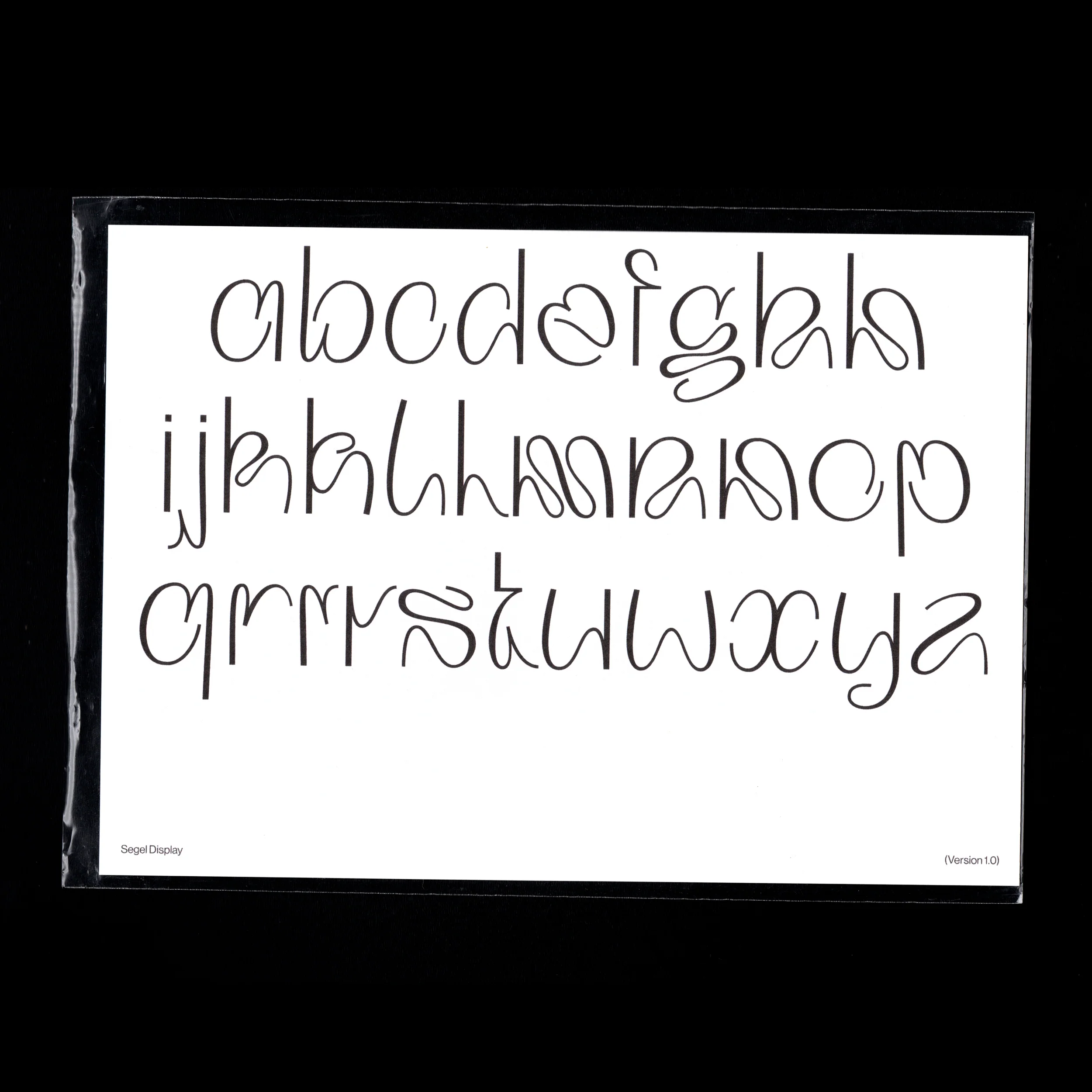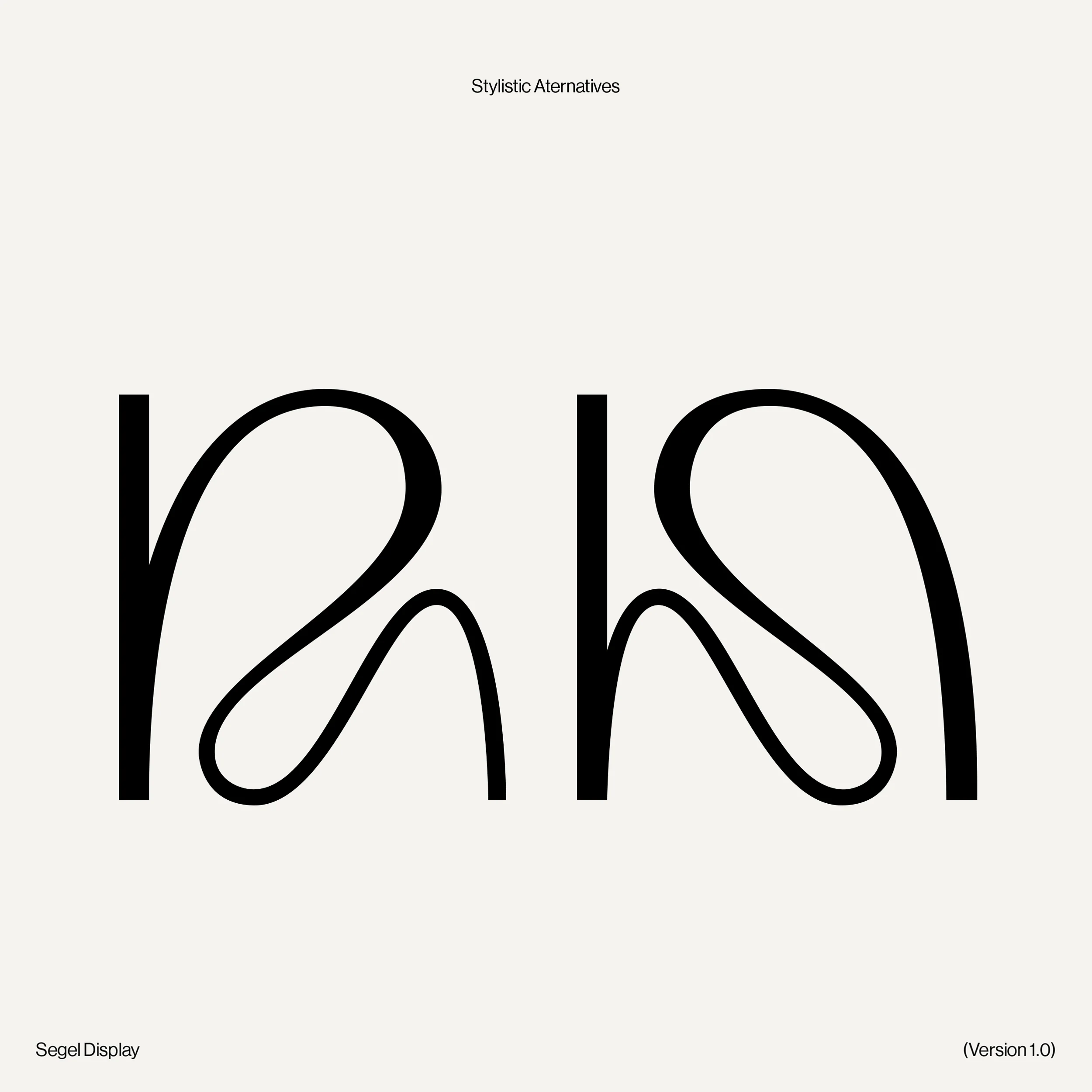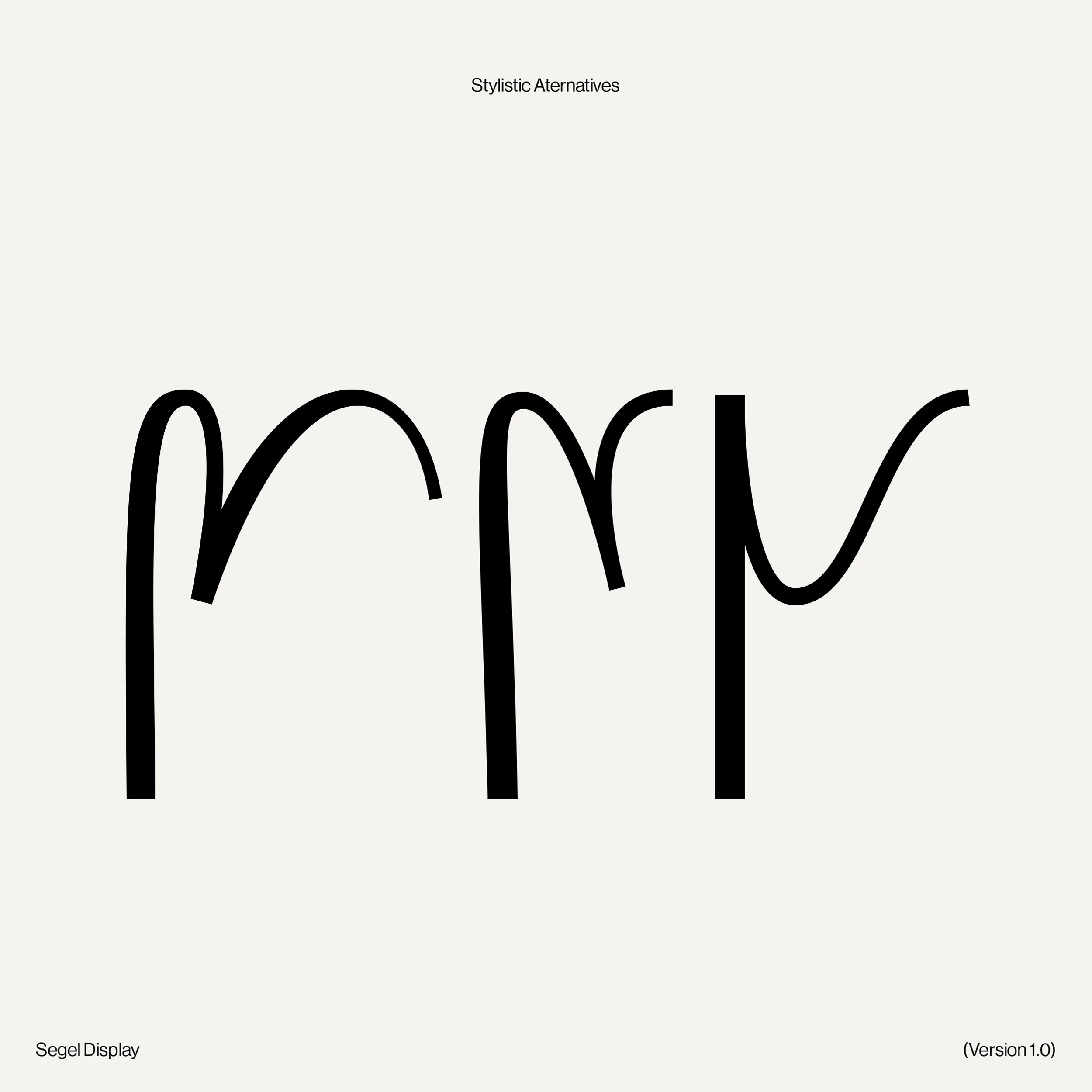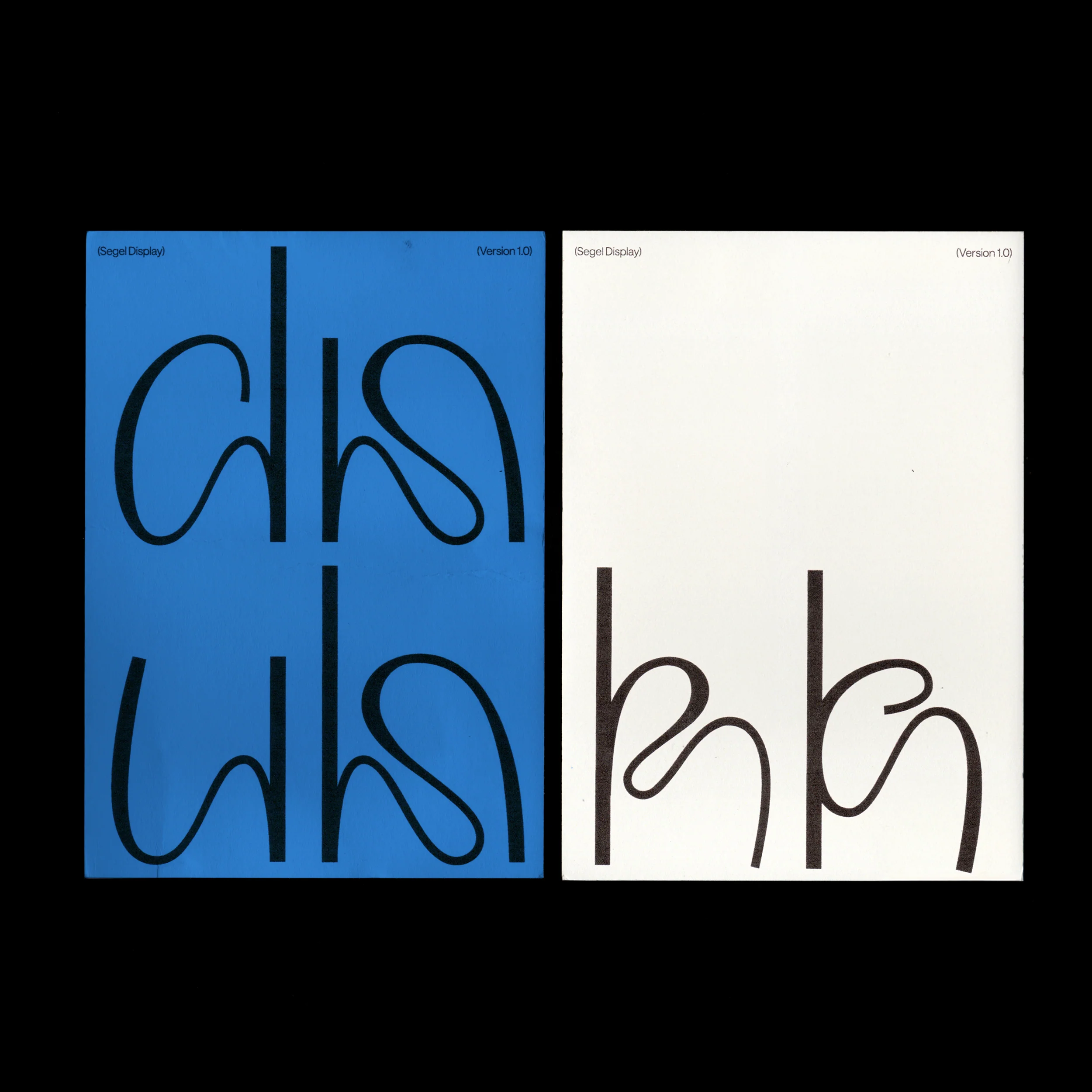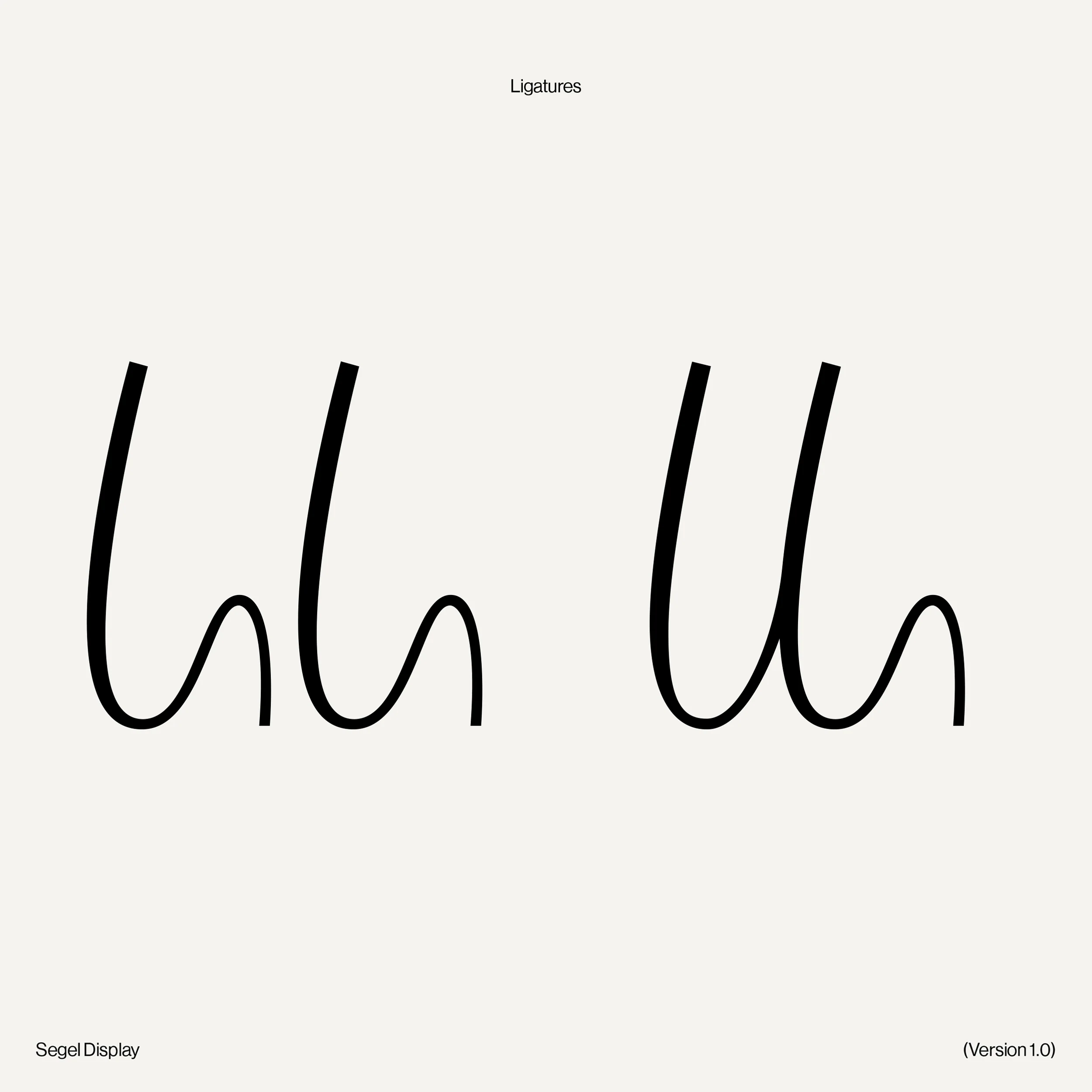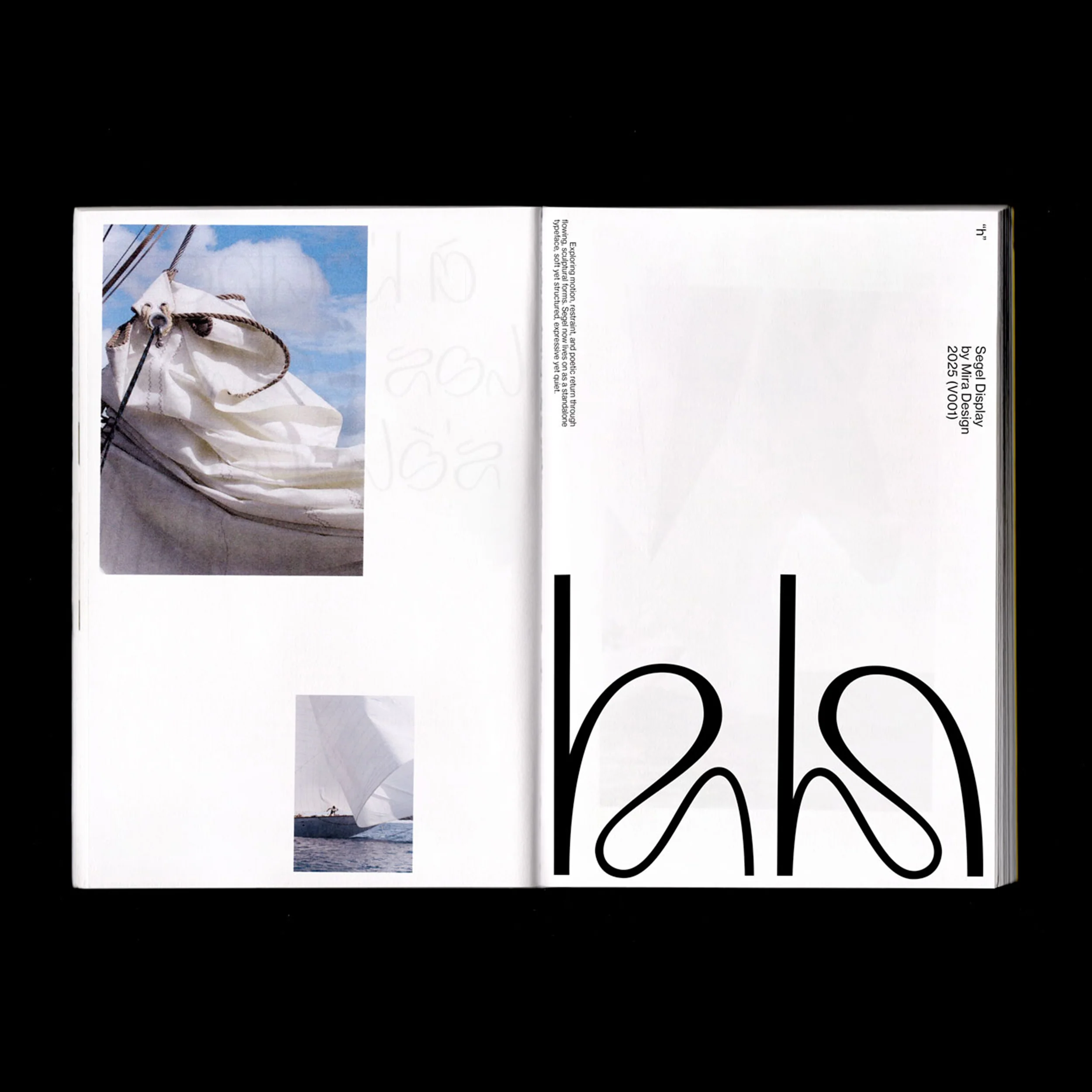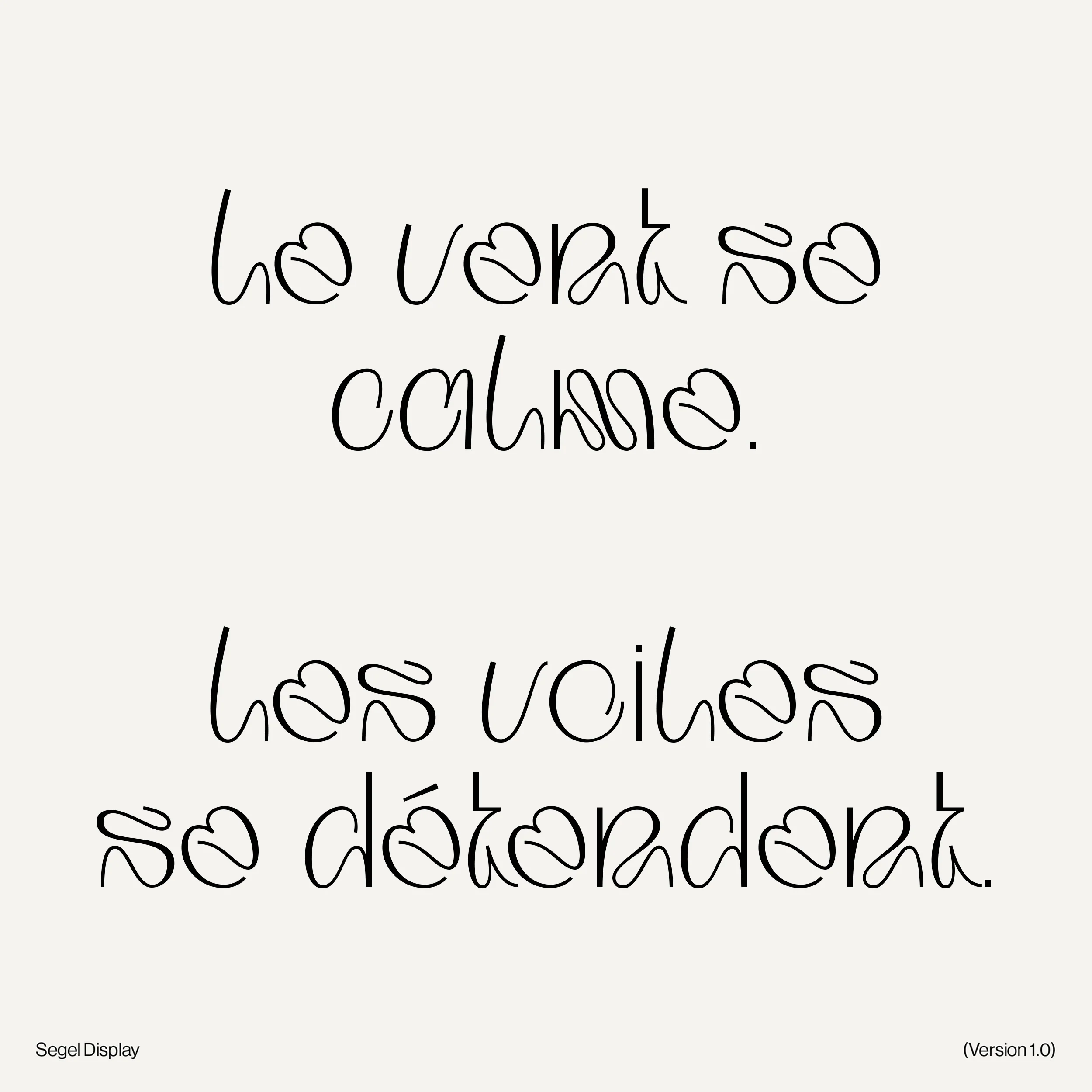
Segel Display
Segel Display is an experimental display typeface inspired by the drape and collapse of sails, the release of tension when the wind that once stretched and pulled the fabric softens, and the sails relax.
Its sweeping curves and sculptural counterforms echo this balance of motion and stillness, creating letterforms that feel both delicate and intentional.
Segel grew from explorations of rhythm, flow, and return. The result is a typeface that now stands as a sculptural study in stillness, motion, and the sense of arrival.